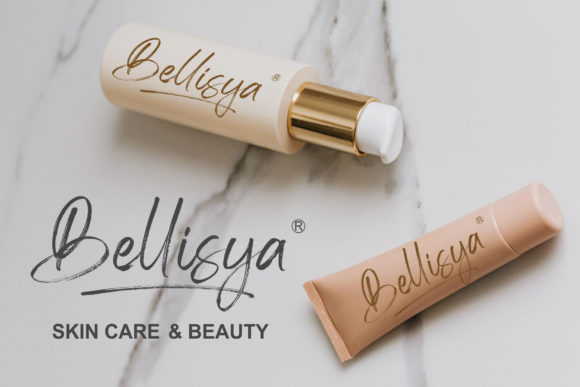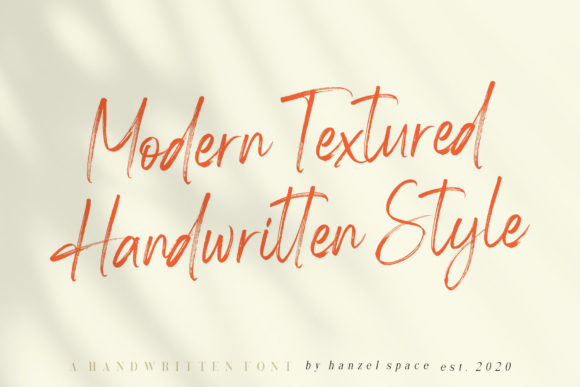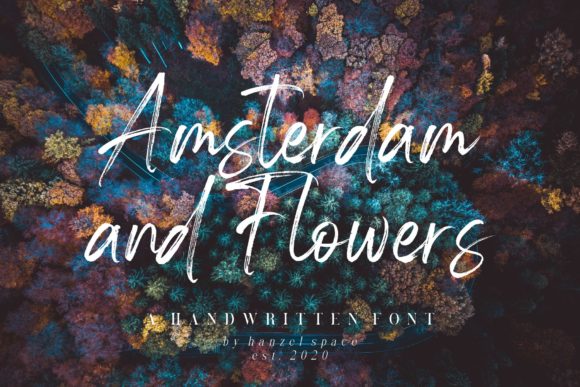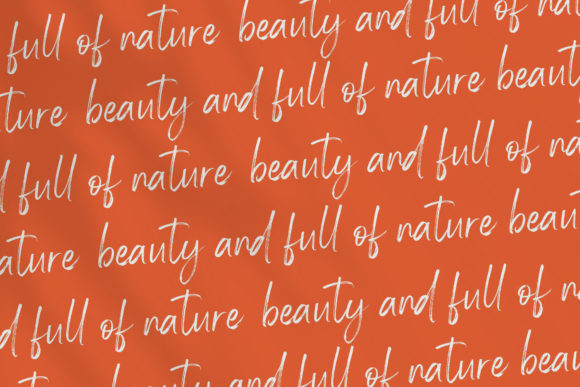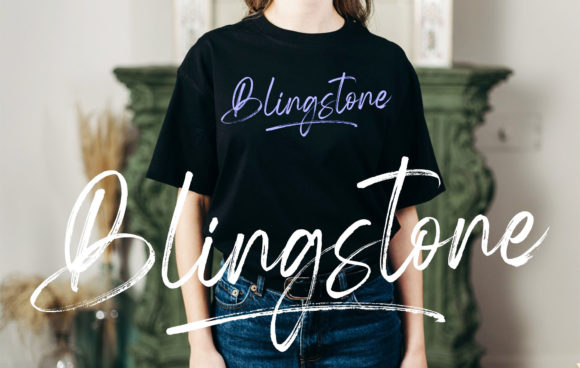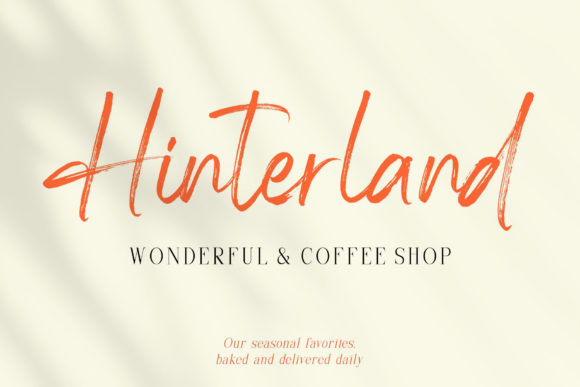
Introducing Blingstone Font: Elevate Your Designs with a Touch of Elegance
Are you on the hunt for a font that adds a dash of sophistication and whimsy to your designs? Look no further than Blingstone Font, a stunning brushed handwritten font that is sure to capture the hearts of designers and crafters alike. With its natural and unique style, Blingstone is incredibly versatile and can be effortlessly paired with a wide range of designs, making it a must-have addition to your font collection.
The Beauty of Blingstone Font
Blingstone Font boasts a beautiful, hand-brushed aesthetic that exudes elegance and refinement. Its distinctive, cursive script is characterized by fluid strokes, subtle imperfections, and a charming, organic feel that instantly elevates any design. Whether you’re working on a logo, invitation, packaging, or social media graphics, Blingstone Font brings a level of sophistication and glamour that’s hard to match.
What Makes Blingstone Font So Special?
So, what sets Blingstone Font apart from other fonts out there? Here are just a few reasons why this gorgeous font is a cut above the rest:
- Unique and eye-catching: Blingstone Font features a one-of-a-kind design that’s sure to grab attention and leave a lasting impression.
- Natural and organic: The font’s hand-brushed style gives it a warm, authentic feel that’s perfect for designs that require a personal touch.
- Highly versatile: Blingstone Font can be used across a wide range of designs, from elegant wedding invitations to bold brand logos.
- Easy to read: Despite its ornate appearance, Blingstone Font remains surprisingly legible, making it suitable for both headlines and body text.
Blingstone Font is a dream come true for designers and crafters who want to add a touch of luxury and whimsy to their work. Whether you’re creating:
- Wedding stationery: Use Blingstone Font to create breathtaking wedding invitations, save-the-dates, and thank-you cards.
- Branding and packaging: Add a dash of glamour to your brand’s logo, labels, and packaging with this stunning font.
- Social media graphics: Elevate your social media presence with eye-catching graphics, quotes, and promotions featuring Blingstone Font.
- DIY projects: Bring a touch of elegance to your craft projects, such as handmade cards, scrapbooking, and iron-on designs.
Tips for Using Blingstone Font
To get the most out of Blingstone Font, here are a few tips to keep in mind:
- Pair with contrasting fonts: Combine Blingstone Font with a clean, sans-serif font to create visual interest and balance.
- Experiment with colors: Try pairing Blingstone Font with a range of colors, from metallics to pastels, to find the perfect match for your design.
- Don’t be afraid to get creative: Blingstone Font is perfect for adding a personal touch to your designs, so don’t be afraid to experiment and try new things!
In conclusion, Blingstone Font is a truly exceptional font that is sure to become a staple in any designer’s or crafter’s collection. Its unique blend of elegance, whimsy, and versatility makes it the perfect choice for a wide range of designs, from wedding stationery to branding and social media graphics. So why wait? Download Blingstone Font today and start elevating your designs to new heights!